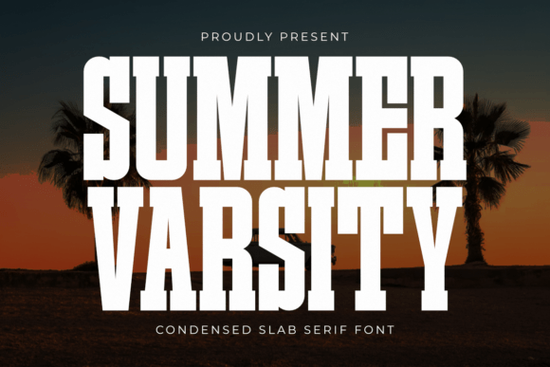
If you're designing summer-themed apparel, event posters, or social media graphics that need a bold, athletic punch, the Summer Varsity Font might be exactly what your project’s missing. It’s a condensed slab serif typeface built for impact think vintage sports teams meets beachside energy. All-caps, tall, and tightly spaced, it delivers clarity and confidence without crowding your layout.
What makes Summer Varsity stand out from other varsity-style fonts?
Unlike softer or more rounded varsity fonts, Summer Varsity leans into sharp geometric block serifs and an ultra-condensed vertical structure. This gives it a commanding presence while keeping letterforms crisp even at smaller sizes or on busy backgrounds. It’s especially useful when you need text to read clearly on t-shirts, tote bags, or digital banners without taking up too much horizontal space.
The font channels classic collegiate aesthetics but with a sun-drenched twist. That makes it a smart pick not just for sports teams, but also for summer camps, music festivals, retro diner menus, or even tropical-themed branding. If you’ve liked the look of fonts like Varsity Distressed or Campus, you’ll appreciate how Summer Varsity offers a cleaner, more structured alternative with similar nostalgic appeal.
Where does this font work best?
Because of its heavy weight and tight letter spacing, Summer Varsity shines in applications where boldness matters more than subtlety:
- T-shirt and hoodie designs – especially for team names, summer leagues, or seasonal slogans.
- Social media headers and stories – grabs attention without overwhelming visuals.
- Event posters and flyers – ideal for concerts, beach cleanups, or school spirit weeks.
- Merchandise tags and packaging – adds a sporty, energetic vibe to product labels.
It’s worth noting that because it’s all-caps and condensed, it’s not meant for body text or long paragraphs. But for headlines, logos, or short impactful phrases? It’s hard to beat.
How does it compare to other slab serif fonts for apparel?
Many designers reach for slab serifs because of their sturdy, readable forms but not all are created equal for print-on-demand or screen printing. Fonts like Jersey offer a more traditional athletic feel with wider proportions, while Summer Varsity trades width for height, making it perfect when space is limited vertically (like on a narrow banner or phone case).
Its lack of lowercase letters isn’t a limitation it’s intentional. The uniform cap height creates rhythm and consistency, which is why it pairs so well with icon-based designs or layered graphics. Plus, the sharp serifs prevent it from looking too generic, giving your design a distinctive edge without needing extra effects.
Tips for using Summer Varsity effectively
To get the most out of this font, keep these practical pointers in mind:
- Avoid over-compressing it further. Since it’s already ultra-condensed, additional tracking adjustments can reduce legibility.
- Pair it with simple sans-serifs. Clean fonts like Helvetica or Montserrat let Summer Varsity take center stage without visual competition.
- Use high-contrast colors. White on navy, black on coral, or yellow on dark green bold pairings match the font’s personality.
- Test print samples. If you’re selling physical products, always check how the fine serif details hold up on fabric or paper.
And remember: while it’s called “Summer” Varsity, its strong geometry works year-round for any project needing authoritative, sporty typography. Don’t limit it to just June through August!
Ready to try it? Head over to Creative Fabrica and grab the Summer Varsity Font then test it on a mockup for a beach volleyball tournament tee or a retro ice cream shop sign. You’ll quickly see whether its tall, tight energy fits your creative style.